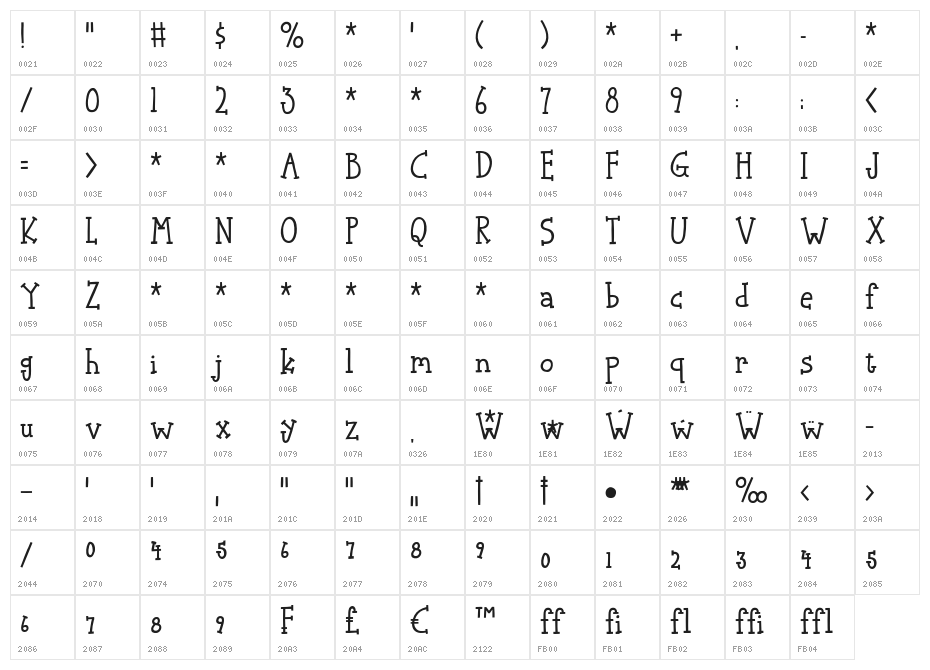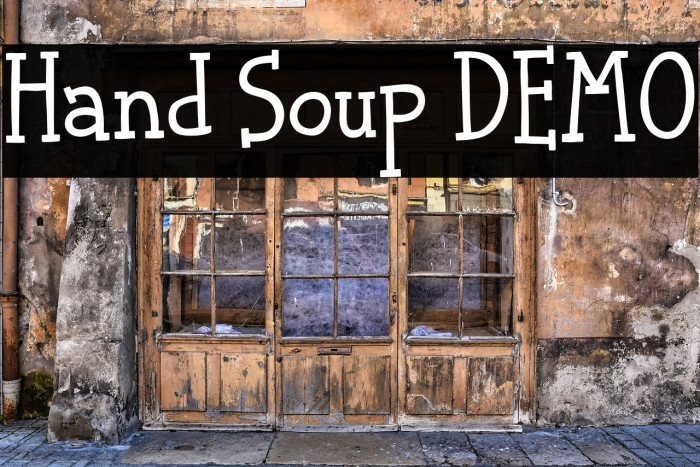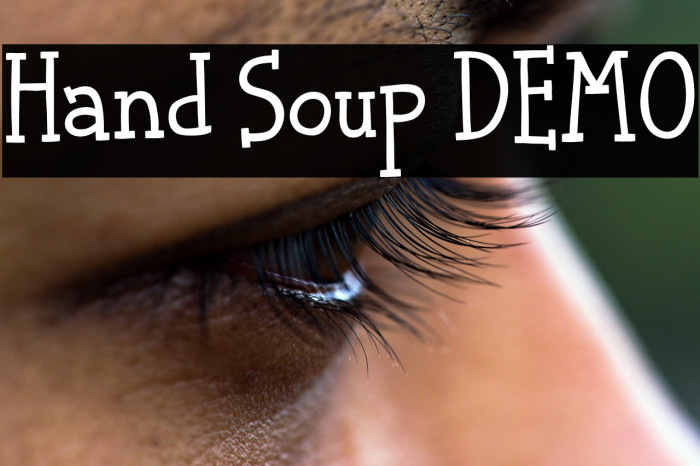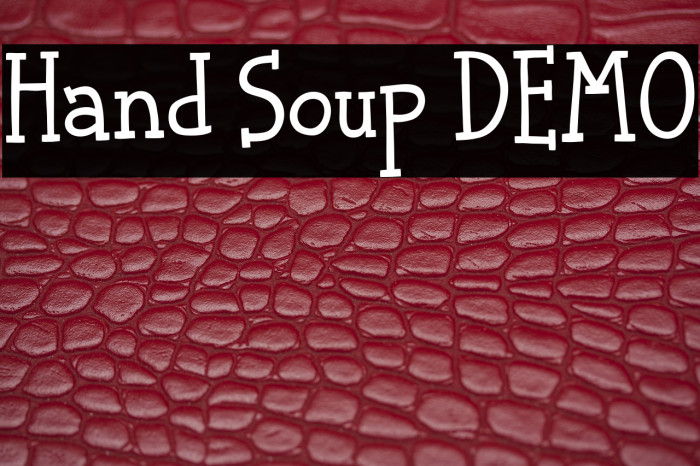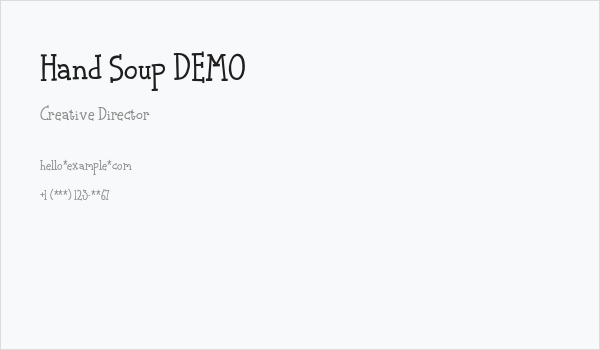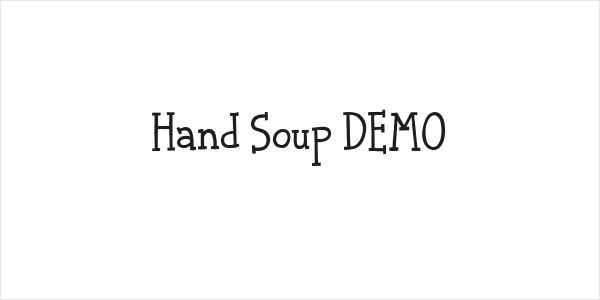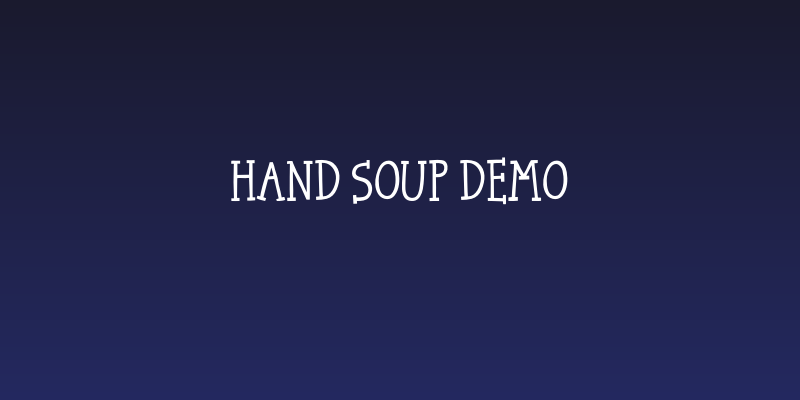
Hand Soup DEMO Font
Hand Soup DEMO Description
This playful and whimsical font features a hand-drawn style with irregular, slightly wavy lines that give it a casual and friendly appearance. The uppercase and lowercase letters are distinct, with a mix of rounded and angular shapes that add to its quirky charm. The numbers and special characters maintain the same playful aesthetic, making it versatile for various creative projects. The font's overall look is informal and approachable, perfect for designs that aim to convey a sense of fun and creativity.
| Proposed Projects | Ideal for children's books, greeting cards, playful branding, and creative posters. |